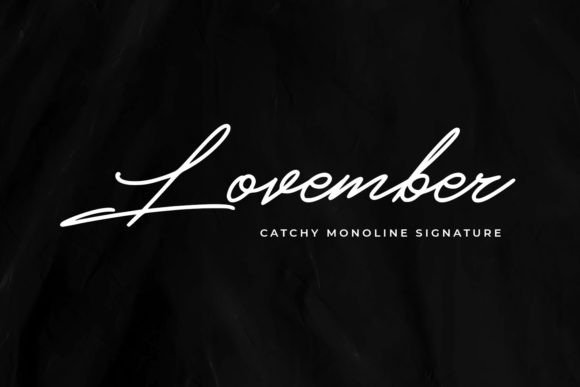
Introducing Lovember Font, the enchanting script font family that will capture your heart and leave you spellbound. Designed by the visionary Abodaniel, Lovember is a masterpiece of calligraphy, a symphony of elegance and charm that will make your designs sing.
With its graceful curves, playful flourishes, and undeniable romantic allure, Lovember is the perfect choice for creating captivating wedding videos that will transport your audience to a realm of pure enchantment. Each character dances along the baseline, adding a touch of whimsy and magic to your visuals.
Lovember is more than just a font; it's an experience. Immerse yourself in its beauty and let your creativity soar. Whether you're designing invitations, save-the-dates, or simply want to add a touch of romance to your personal projects, Lovember is the perfect companion.
With Lovember, you'll have the power to transform your ordinary designs into extraordinary works of art. Its versatility knows no bounds, allowing you to craft stunning logos, eye-catching social media posts, and captivating marketing materials that will leave a lasting impression.
But Lovember is more than just a versatile tool; it's a reflection of your unique style and personality. Its intricate details and charming imperfections will add a touch of authenticity and warmth to your designs, making them truly unforgettable.